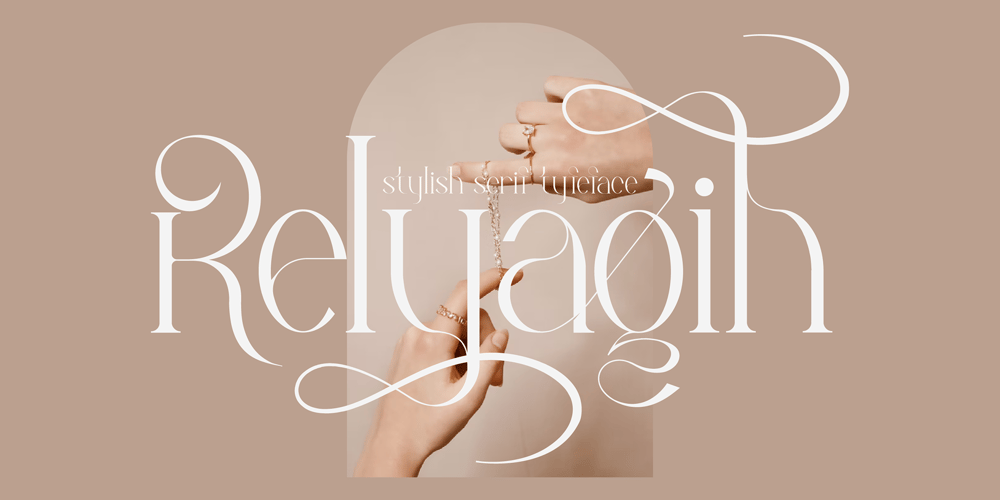
Relyagih Font Family was designed by Heru Utama Putra and published by Letterena Studios. Relyagih contains 2 styles and family package options. Relyagih is a thin lettered and delicate created by Storytype,A serif modern and classic typeface that has own unique style & modern look.This typeface is perfect for an elegant & luxury logo, book or movie title design, fashion brand, magazine, clothes, lettering, quotes, and so much more.